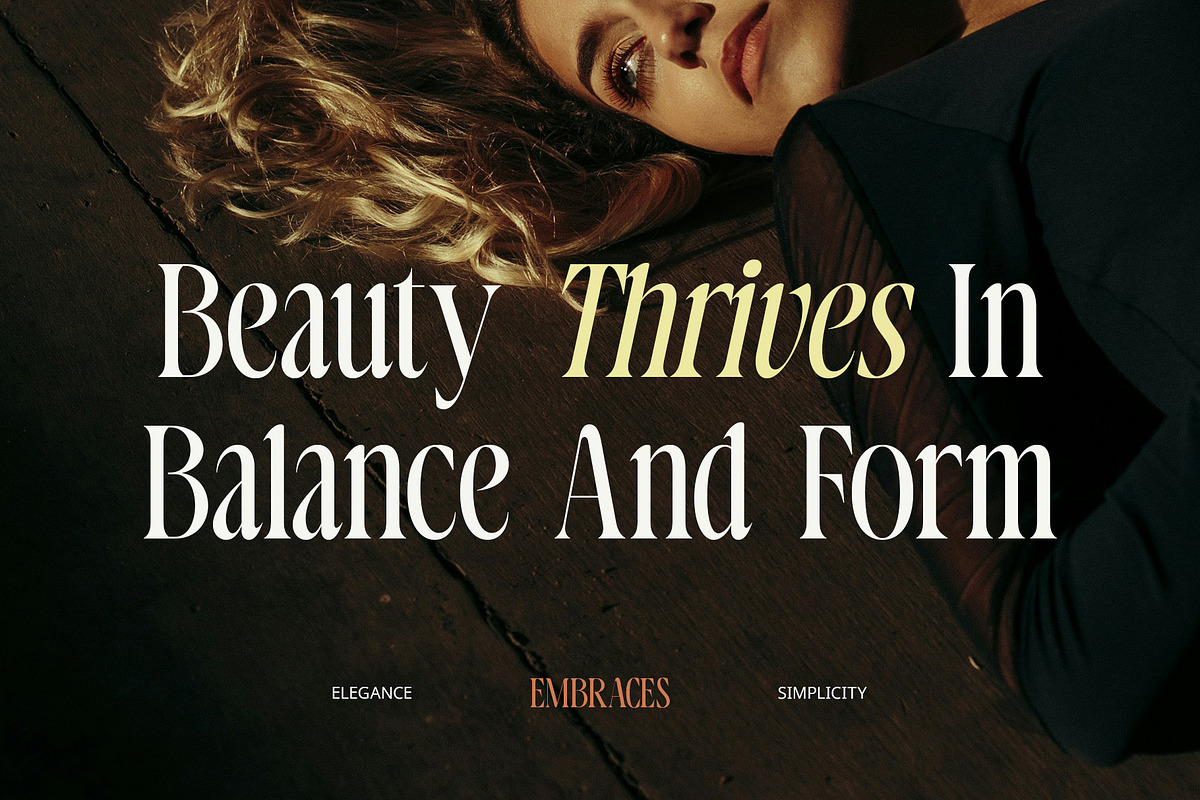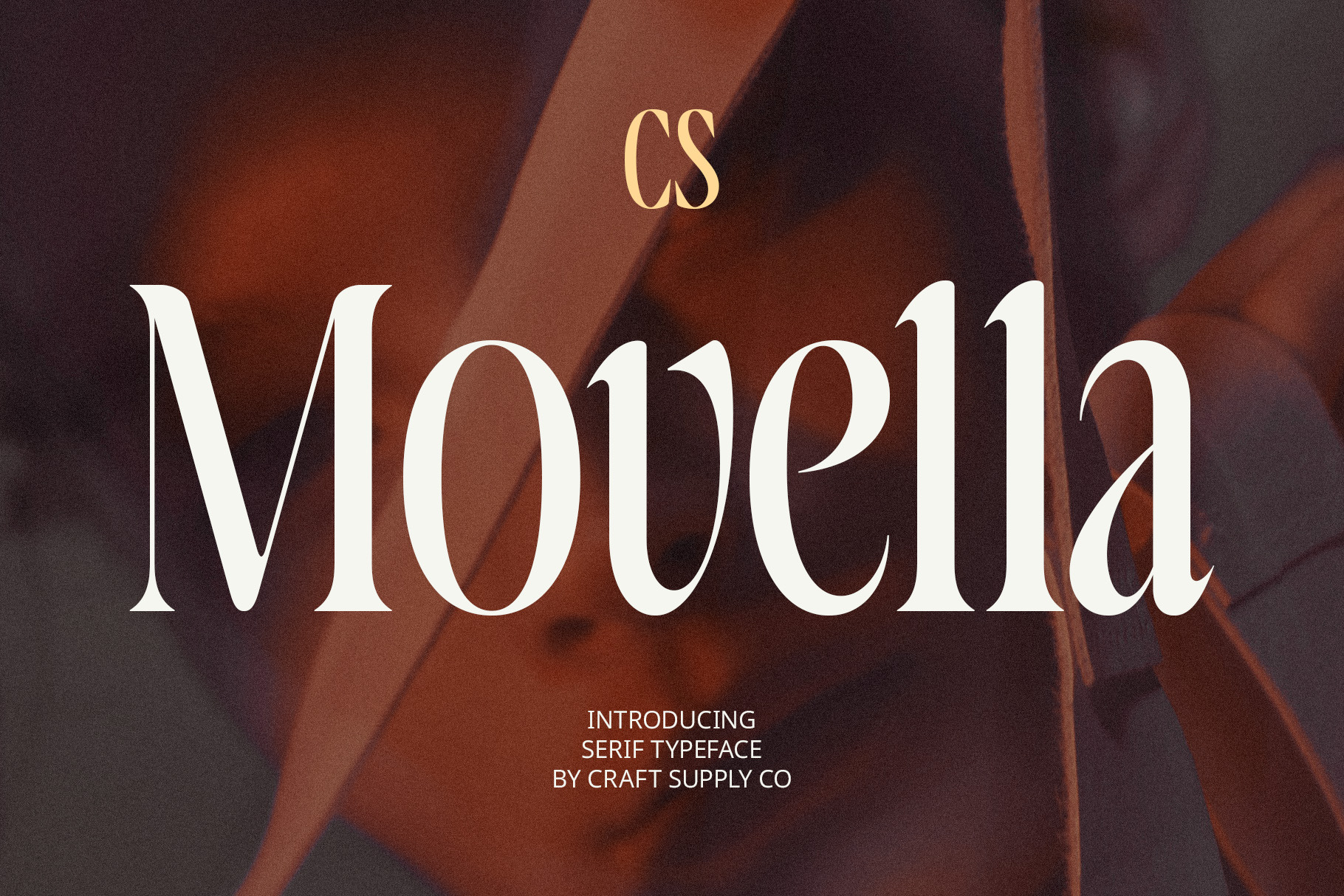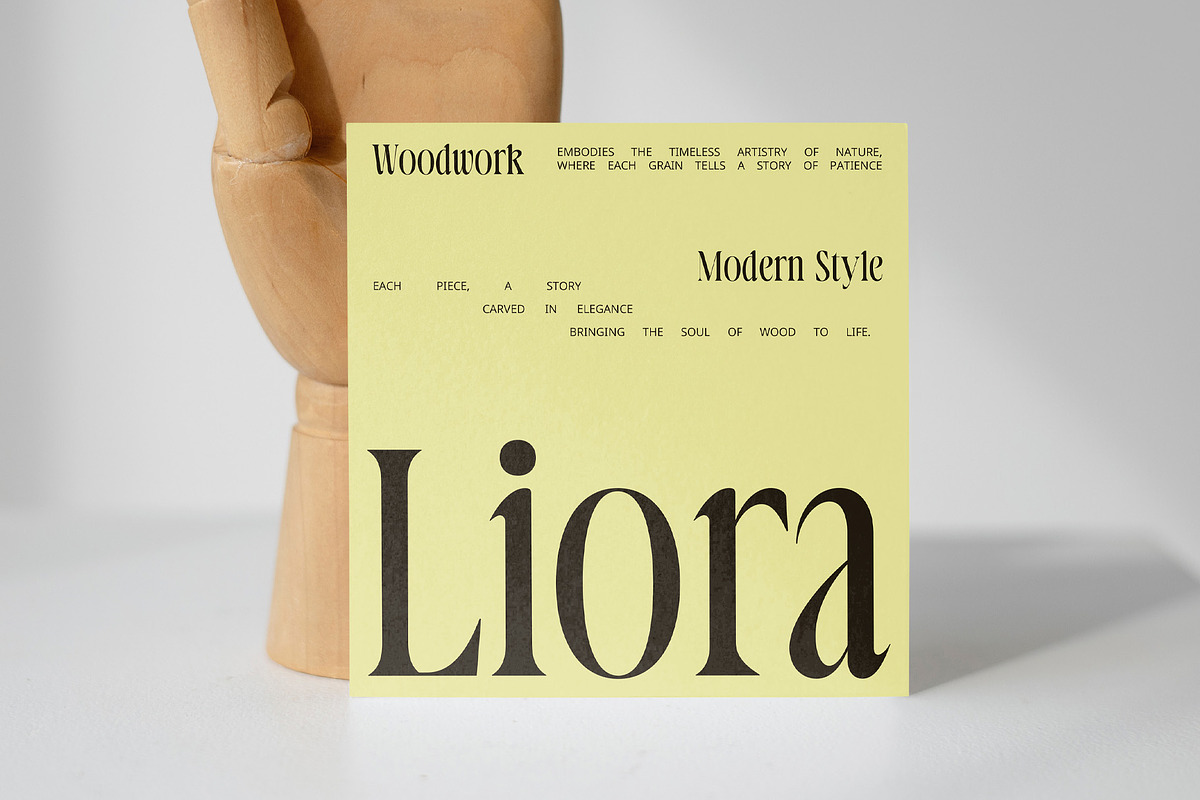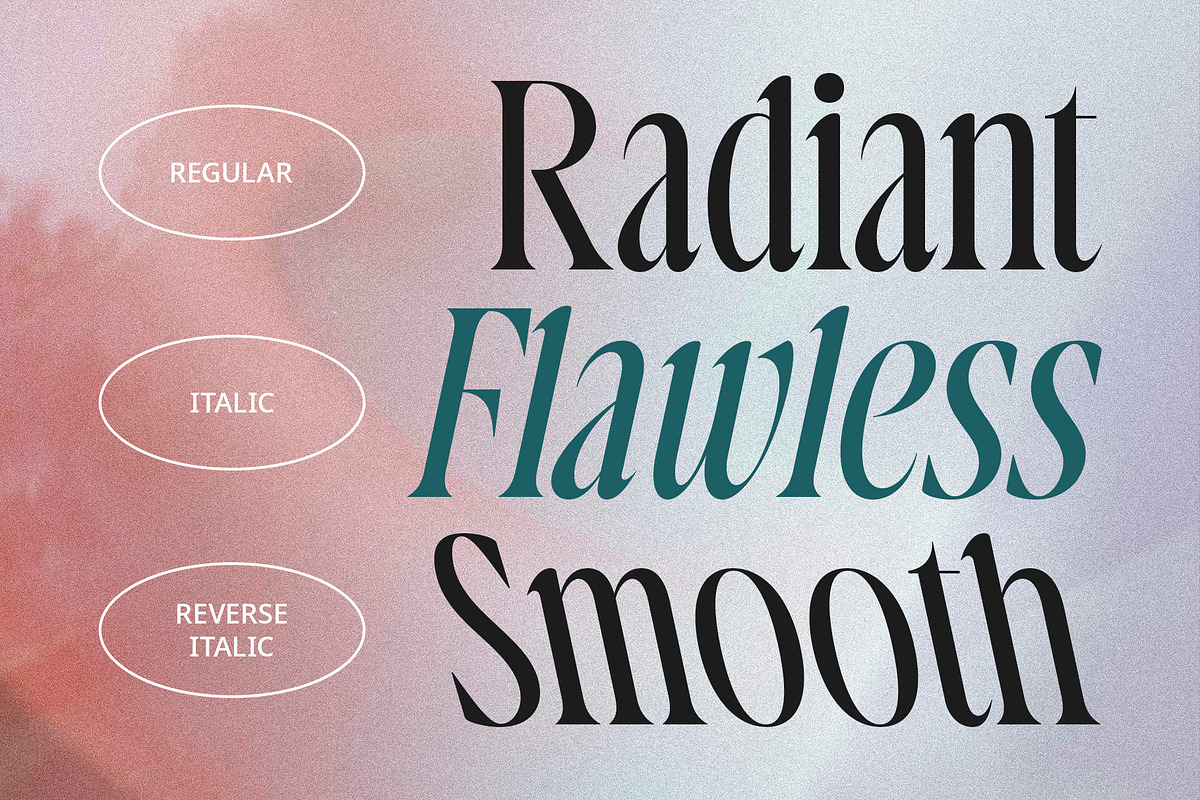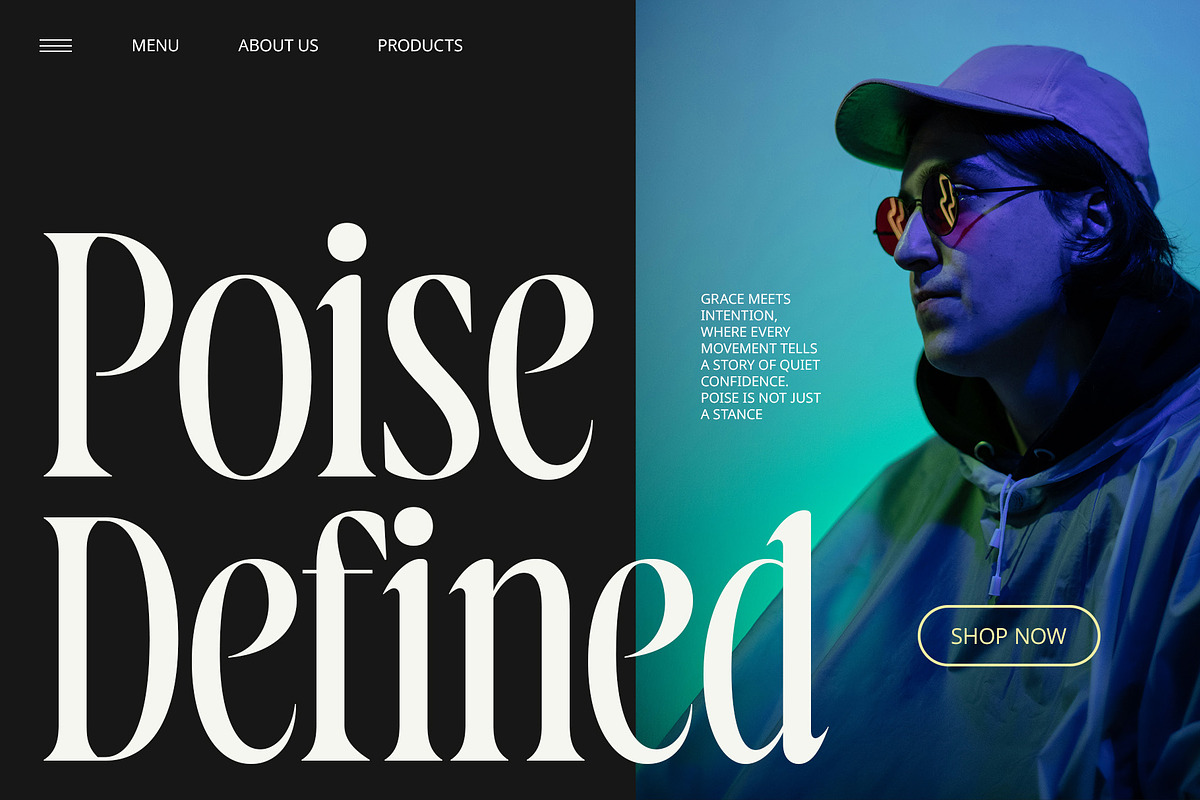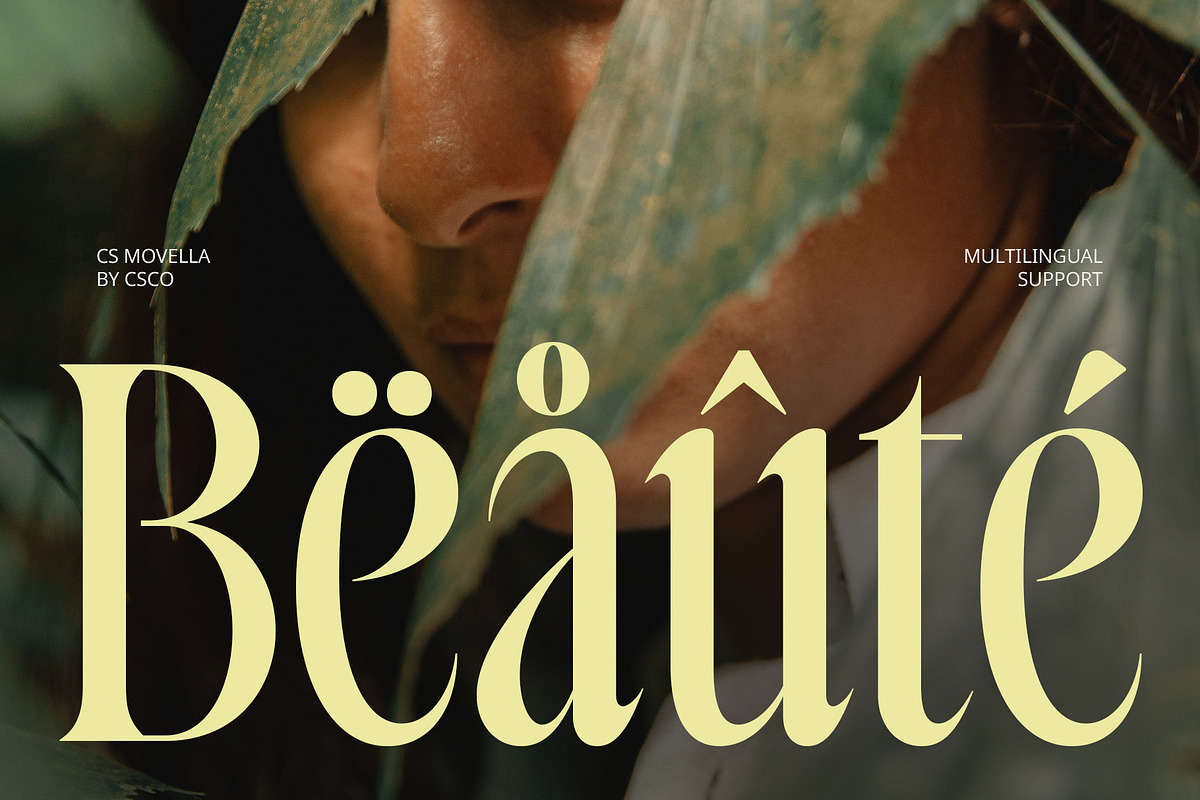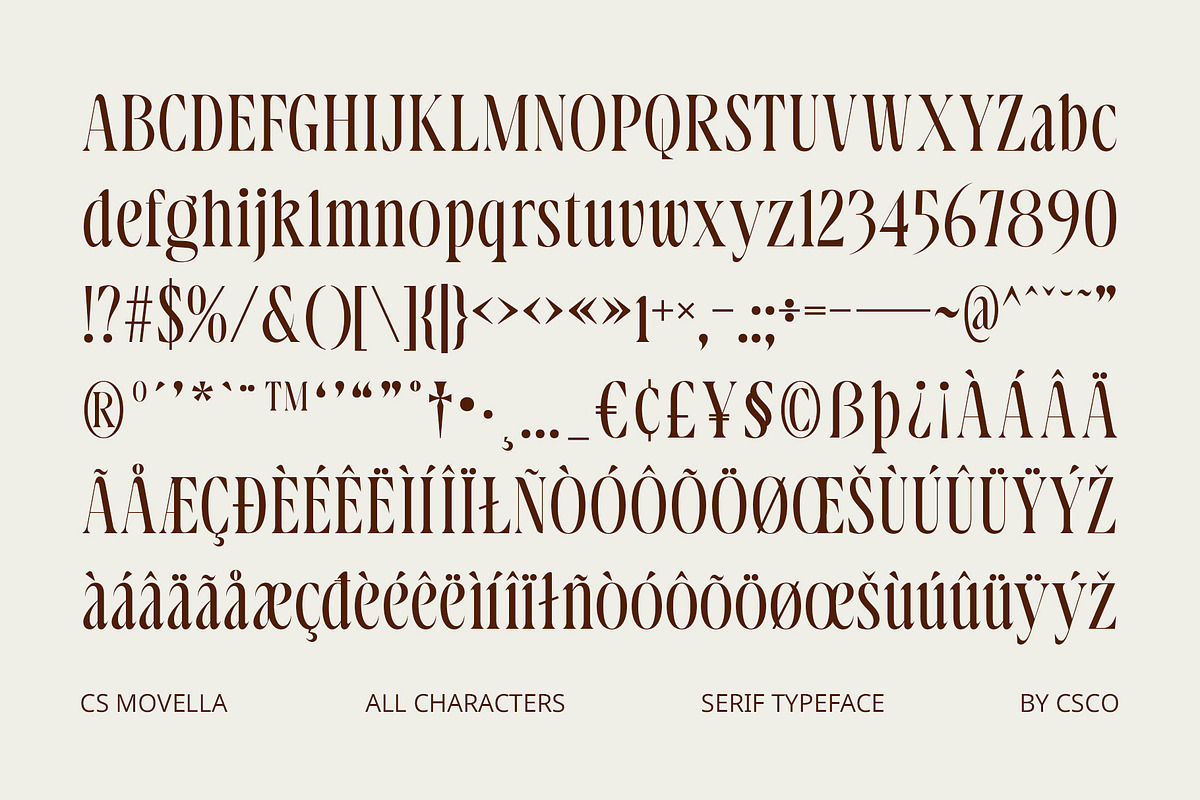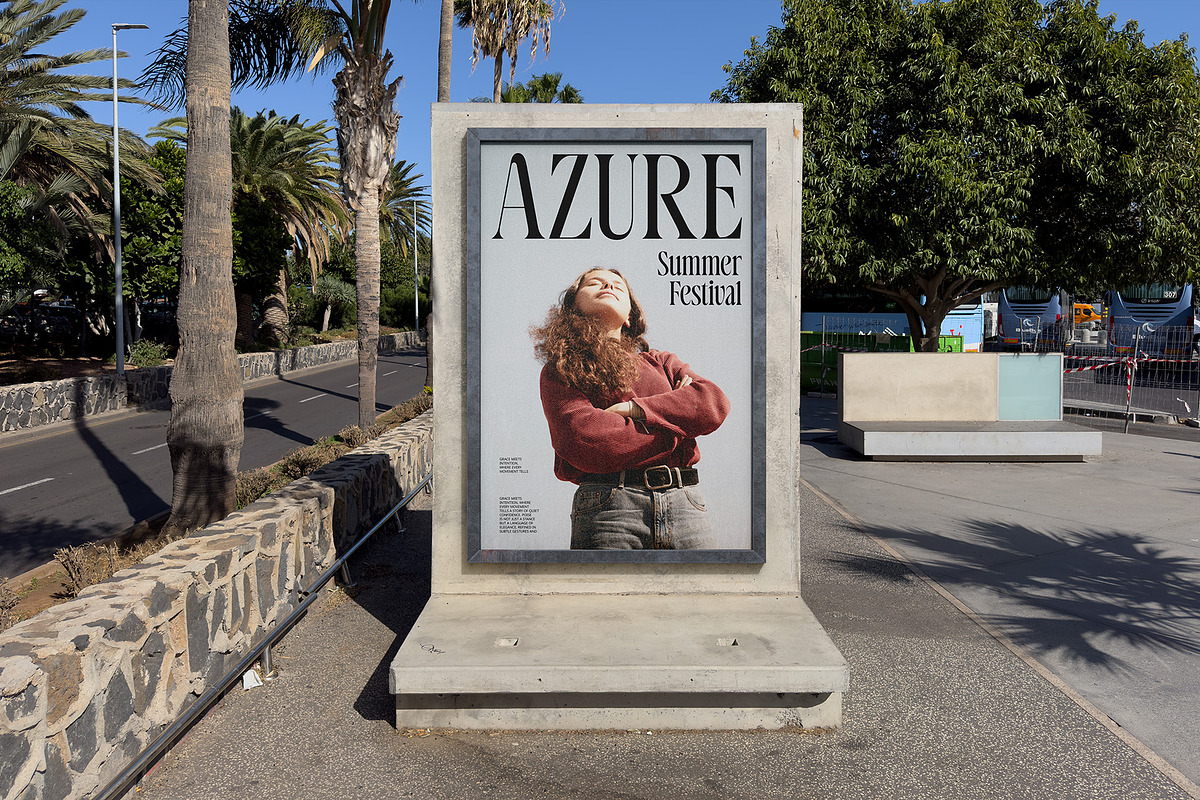
CS Movella – Condensed Font
CS Movella Font – A Sophisticated Condensed Serif
Elegant and Condensed Serif Font CS Movella is a modern serif font designed with long, refined serifs and a sleek condensed form. Its tall proportions and graceful letterforms create a timeless and luxurious aesthetic, making it perfect for high-end branding, fashion editorials, and elegant packaging. The condensed design allows for maximum visual impact, making it ideal for titles, headlines, and statement pieces.
Classic Luxury with a Modern Touch With its well-balanced structure and elongated serifs, CS Movella bridges the gap between classic sophistication and contemporary minimalism. The condensed design allows for efficient space usage, making text appear stylish yet readable, even in tight layouts.
Perfect for Premium Branding and Editorials This font shines in luxury branding, elegant typography, magazine headlines, and artistic layouts. Its slim yet bold presence ensures that every word makes a statement, adding an exclusive and refined feel to any design. Whether used in logos, product packaging, or website typography, CS Movella effortlessly elevates a brand’s identity with its sophisticated and polished aesthetic.
A Timeless Serif for Sophisticated Designs CS Movella embodies grace, precision, and versatility, making it an essential typeface for designers aiming for an upscale and polished look. Whether used for logo design, advertising, or print media, this font delivers an unmistakable sense of sophistication and prestige.